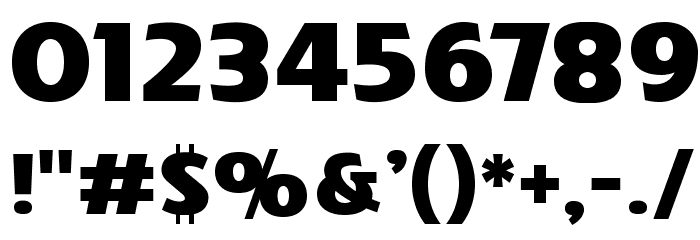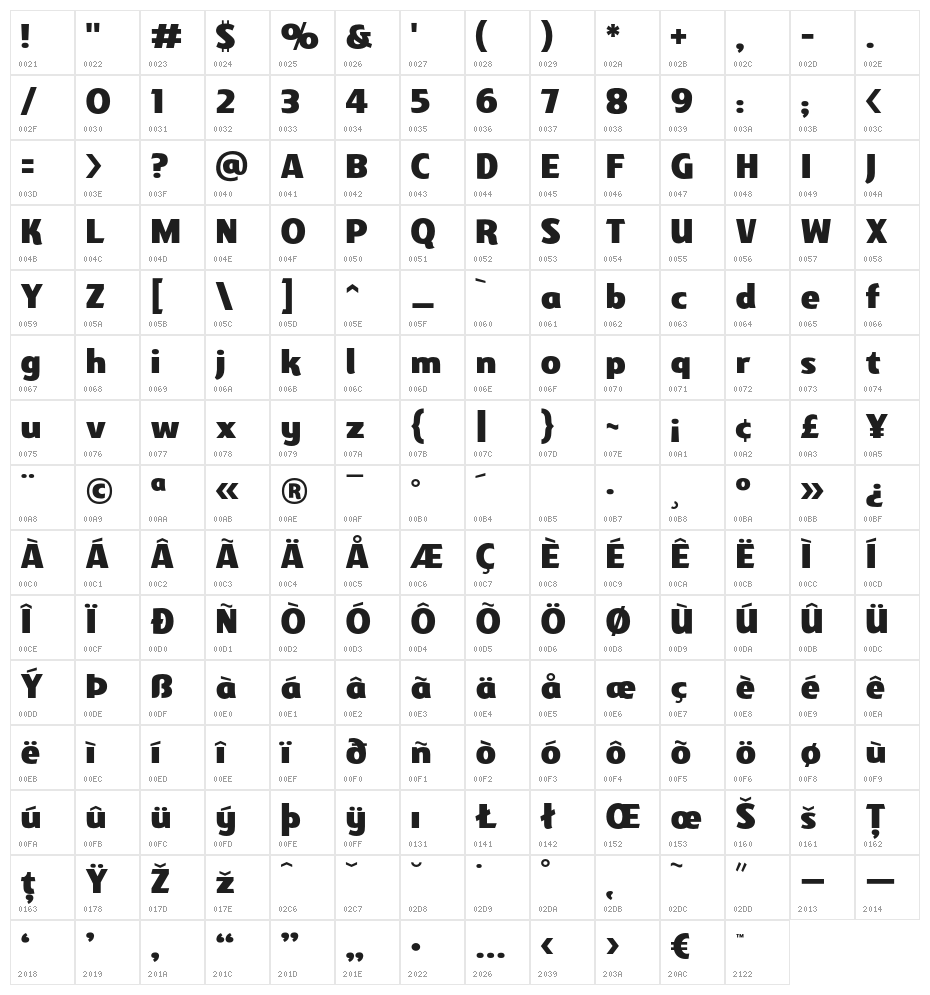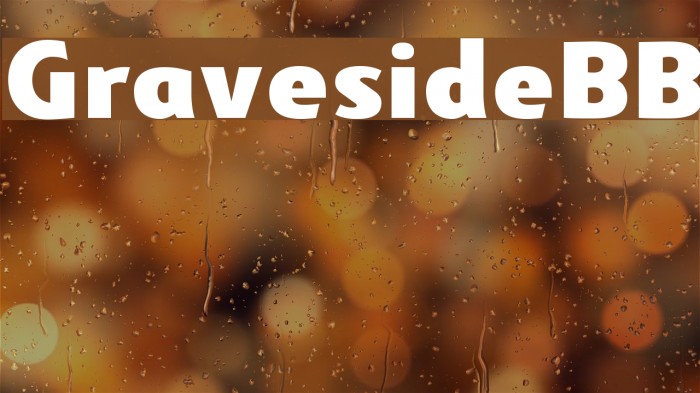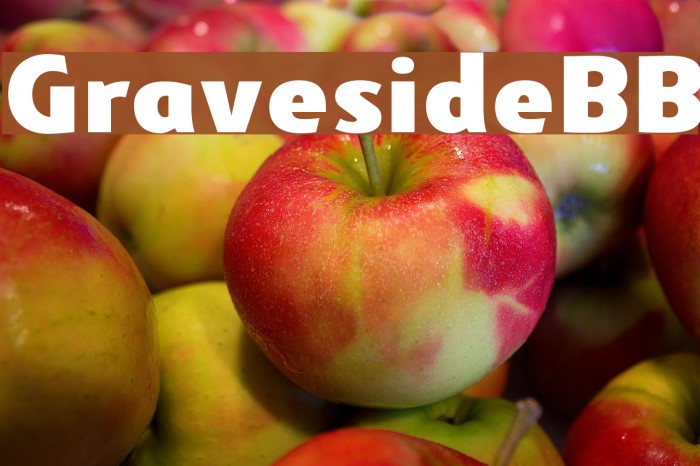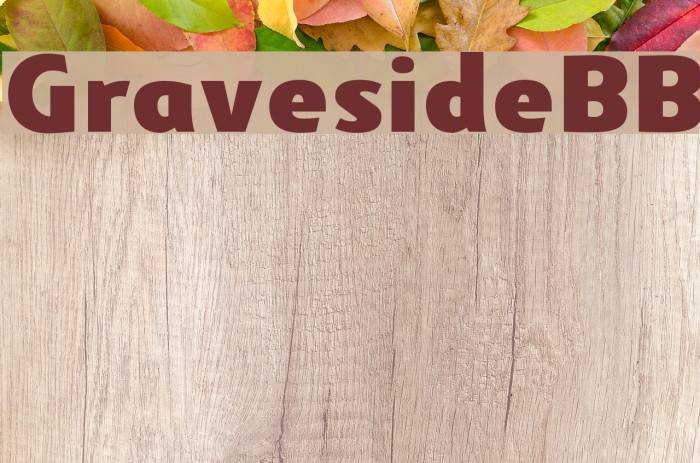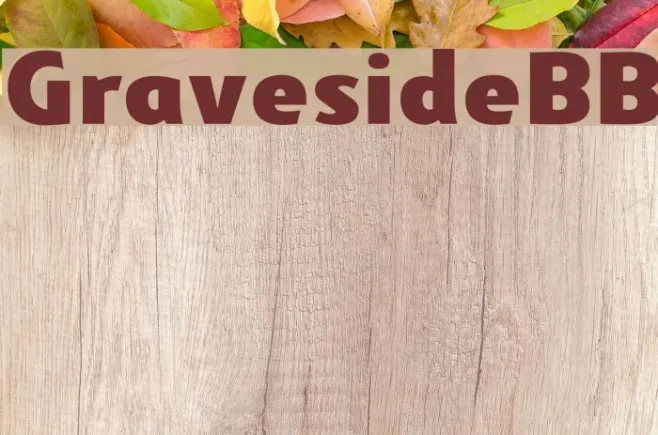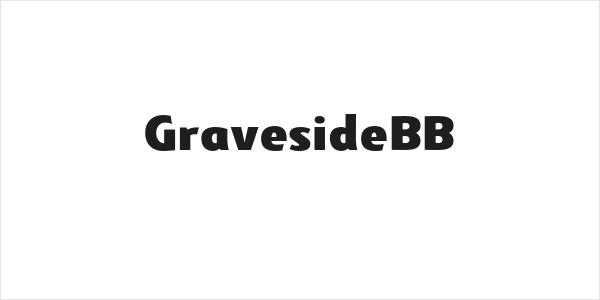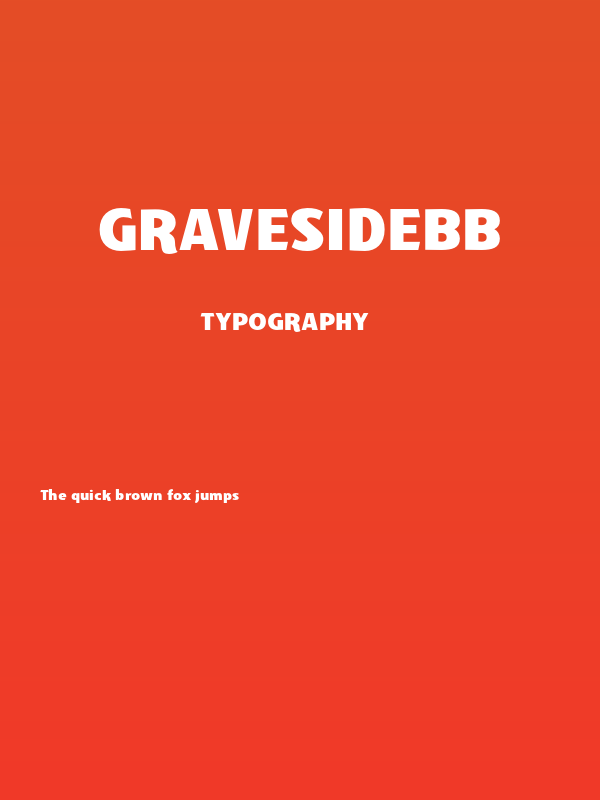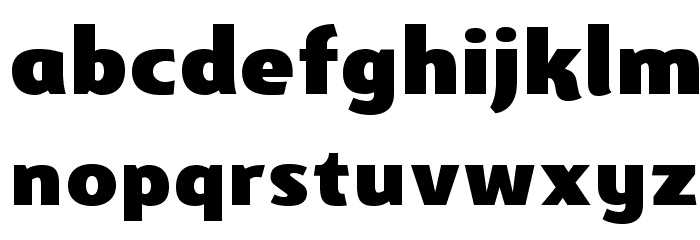
GravesideBB Font
GravesideBB Description
This font features bold, rounded characters with a strong presence, making it ideal for impactful designs. The uppercase letters are robust and slightly condensed, while the lowercase letters maintain a consistent weight, ensuring readability. The numerals are clear and well-proportioned, matching the overall bold aesthetic. Special characters are designed with the same boldness, providing a cohesive look across all glyphs. The font's style is modern and assertive, suitable for projects that require a strong visual impact.
Proposed ProjectsIdeal for headlines, posters, branding, and advertising where a strong visual impact is needed.